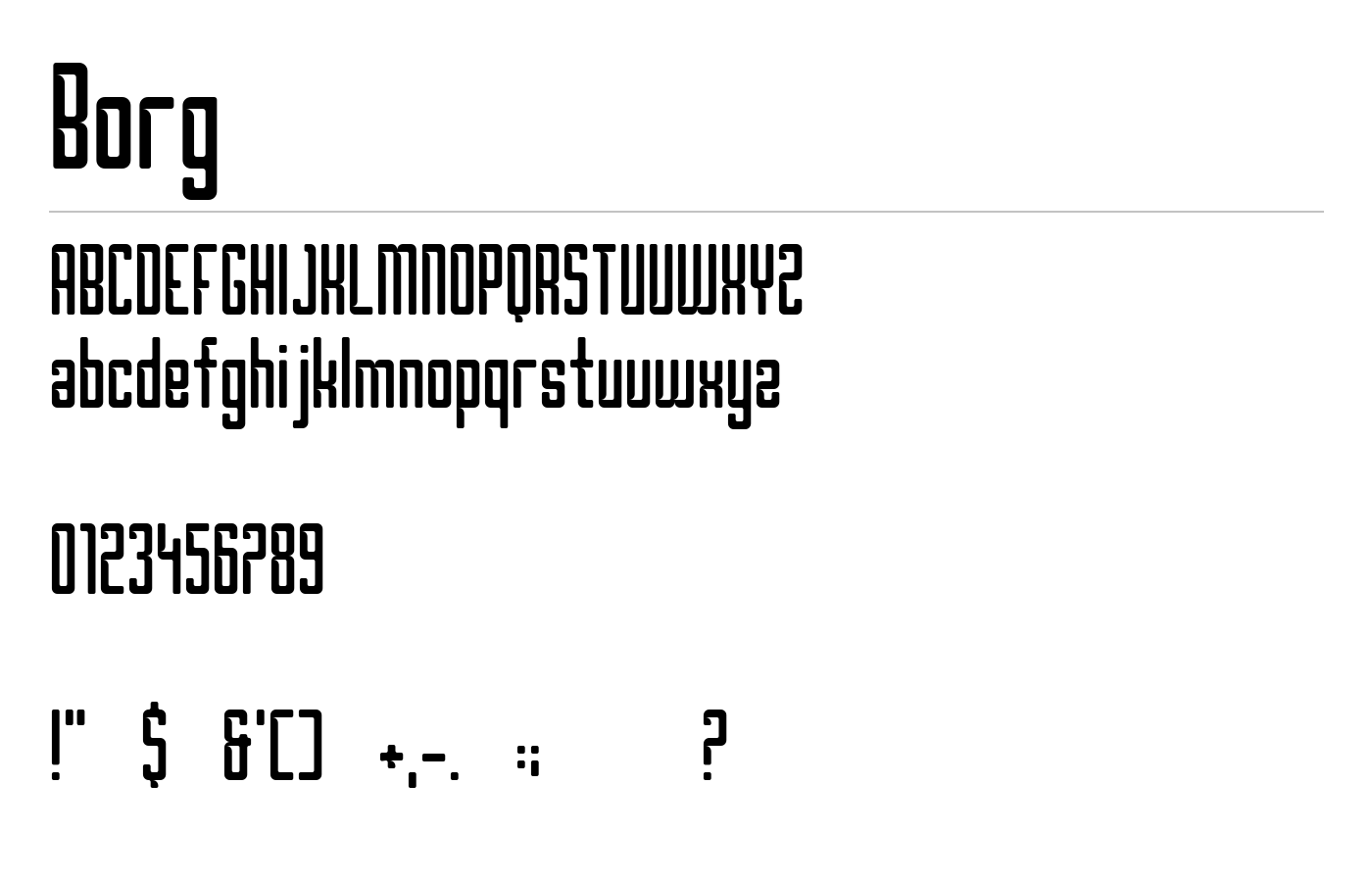
Borg is a condensed sans serif font characterized by its tall, narrow letterforms and uniform stroke weight, giving it a modern and mechanical feel. Its geometric shapes combined with slightly rounded corners make it well-suited for tech, sci-fi, or futuristic themes, ideal for headlines, logos, and branding that seek a bold, distinctive presence. This font’s sharp, clean style delivers readability while conveying a sleek, innovative personality.
Borg Font